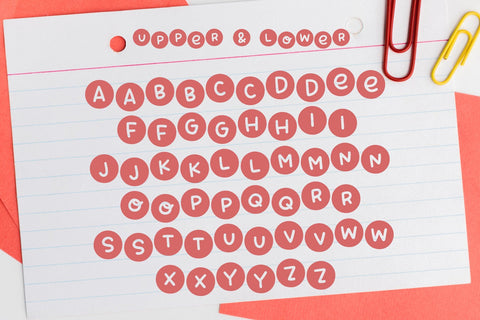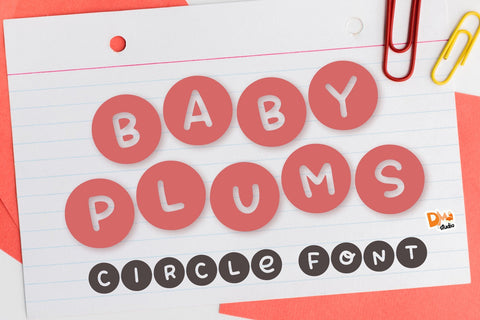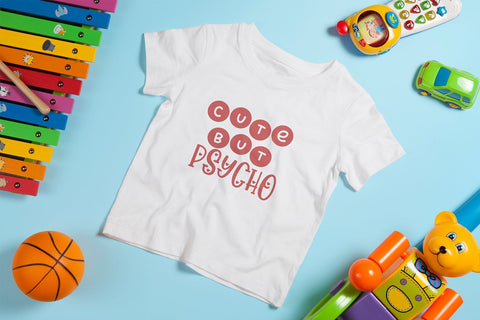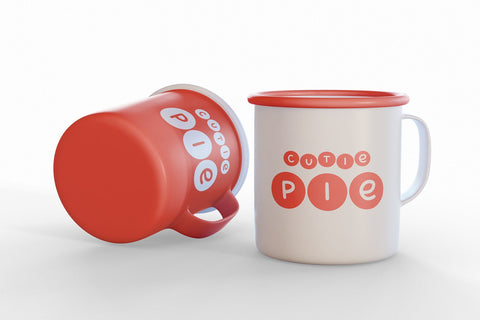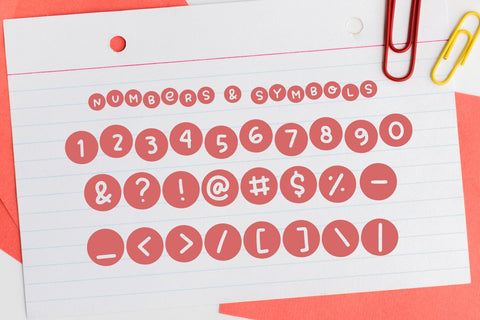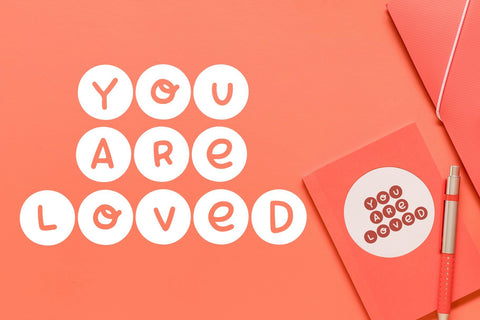
Baby Plums - Cute circle font
Introducing this cute handwritten font in circle, great for your diy crafts, name crafting, label, logo, brands, quotes, social media posts, sticker, and so much more!
- All in caps
- combine the uppercase and lowercase to get the bouncy style
- numbers
- symbols